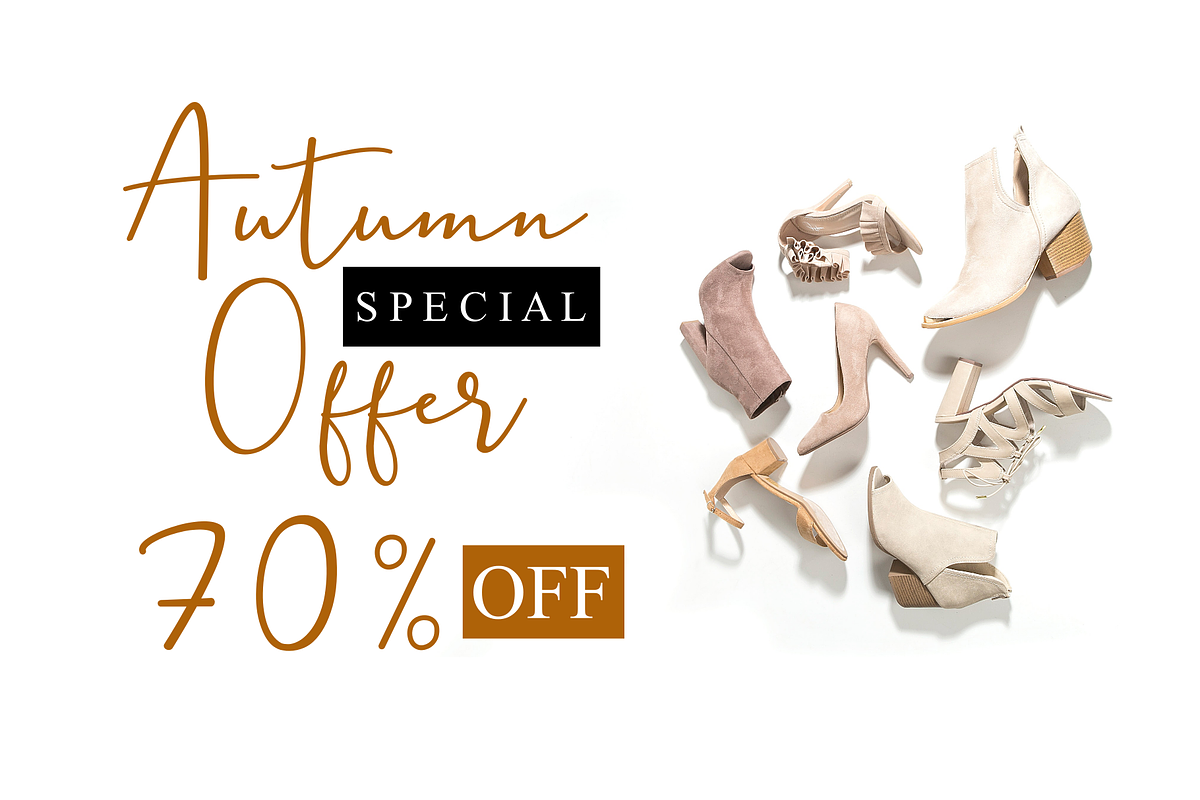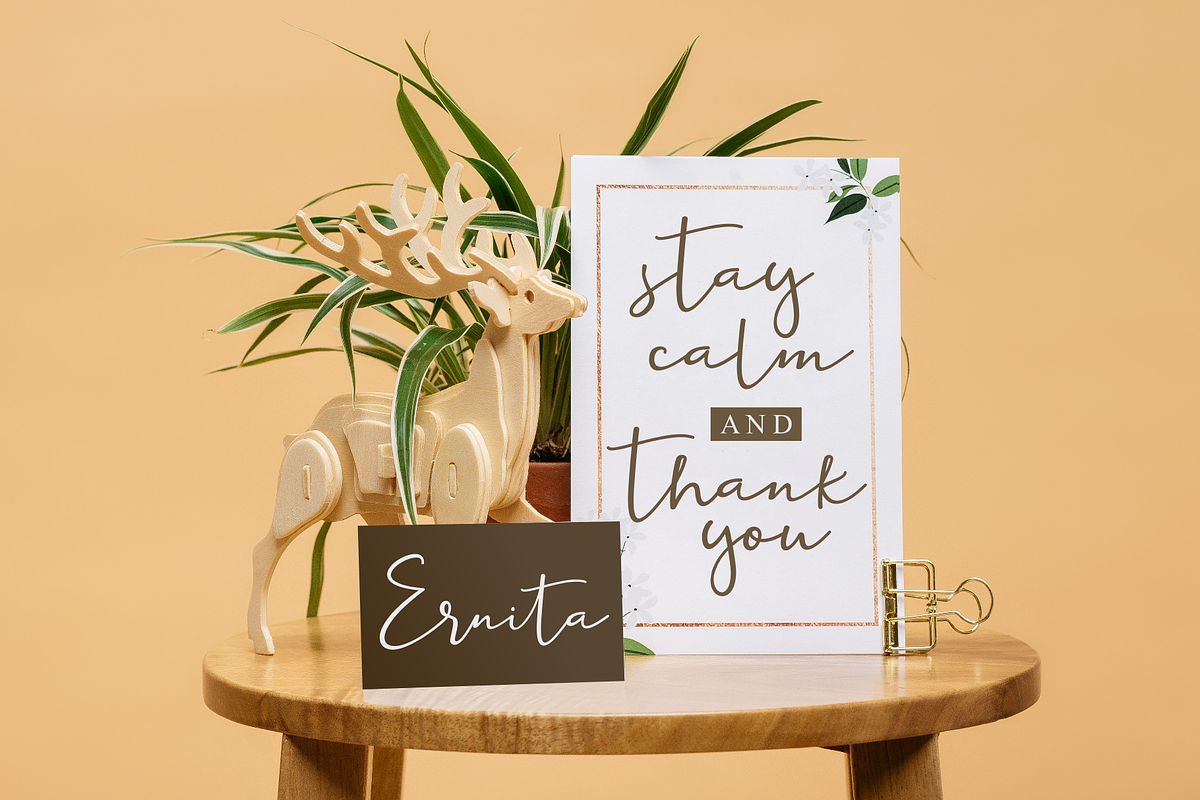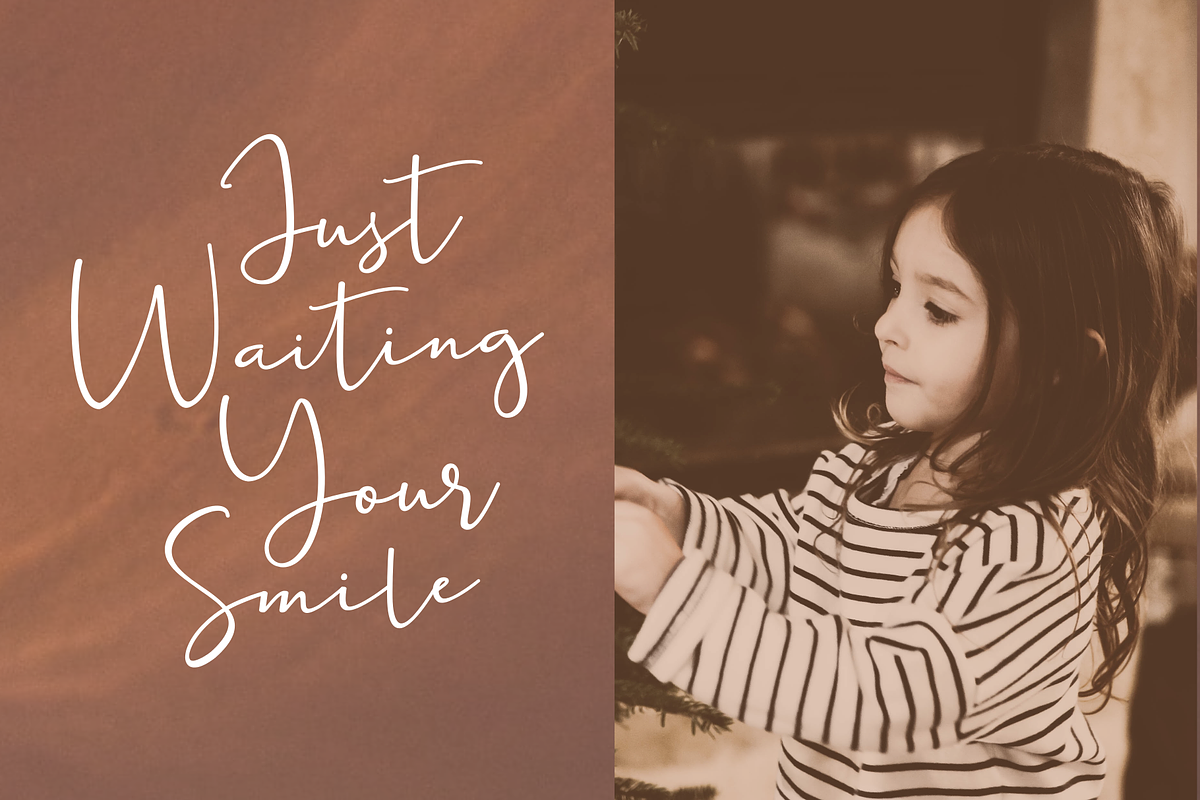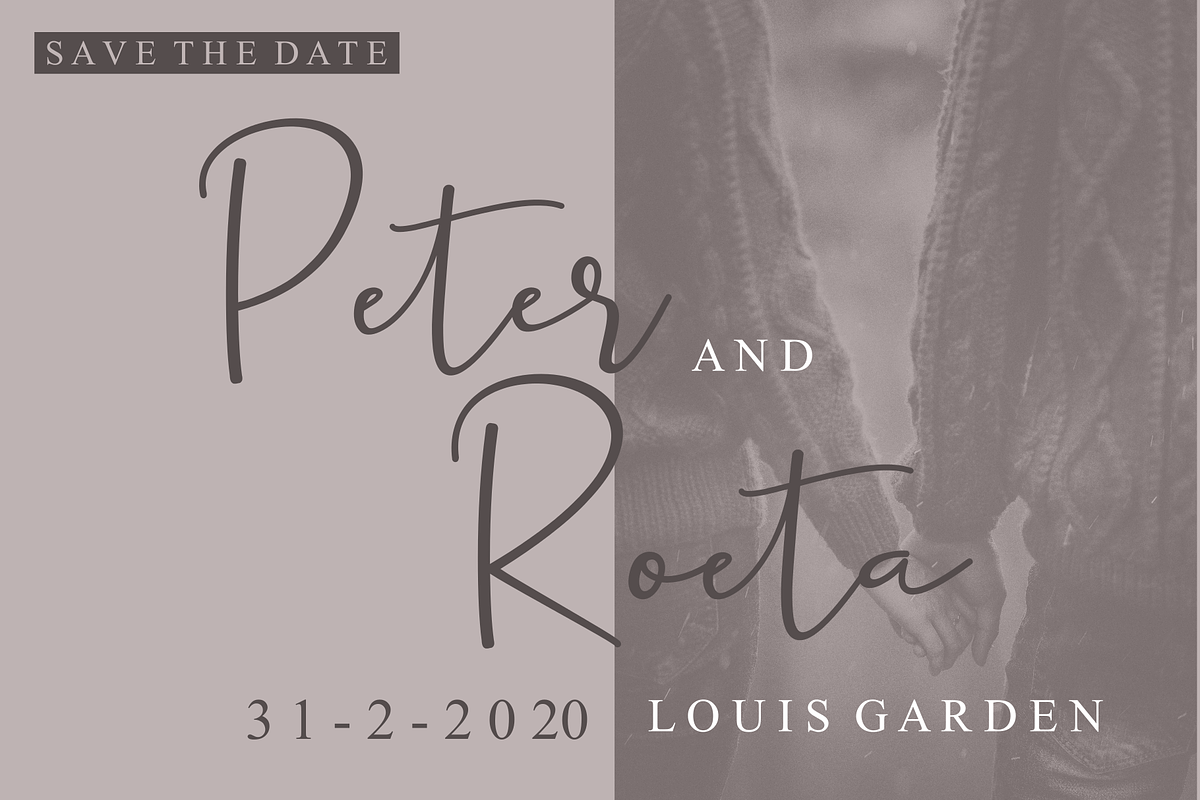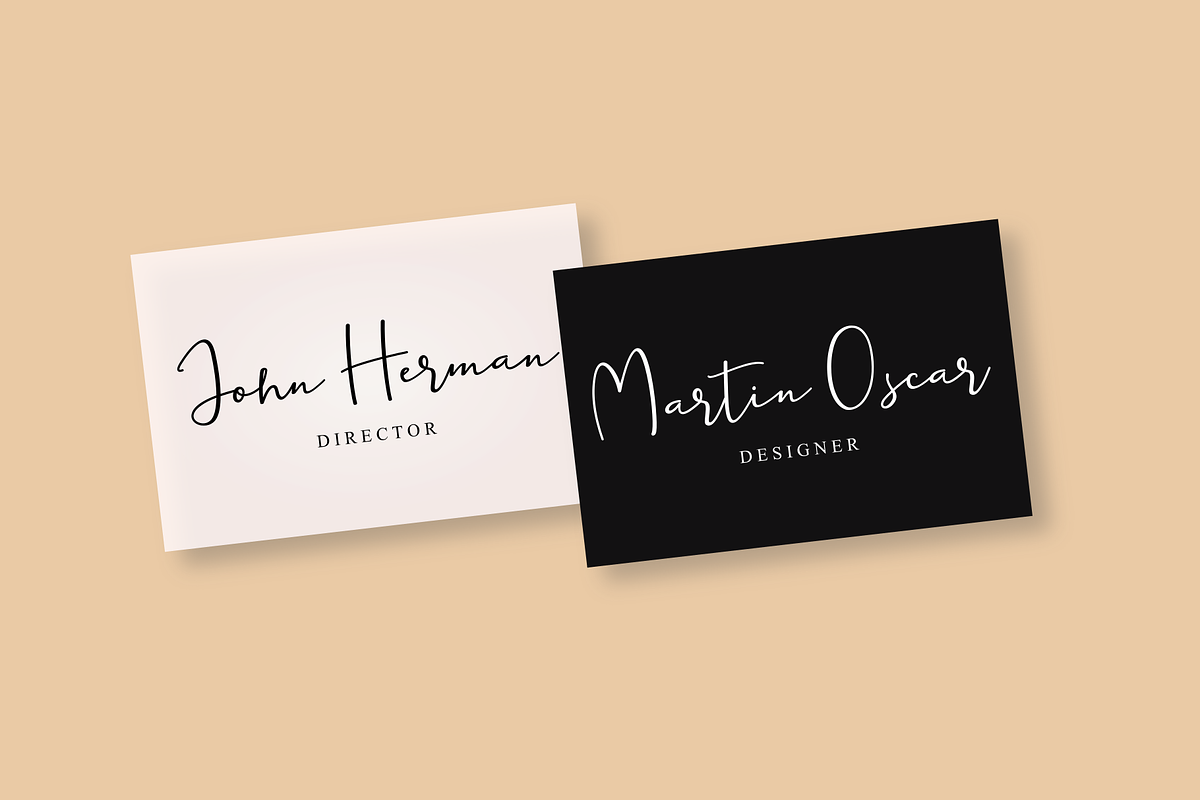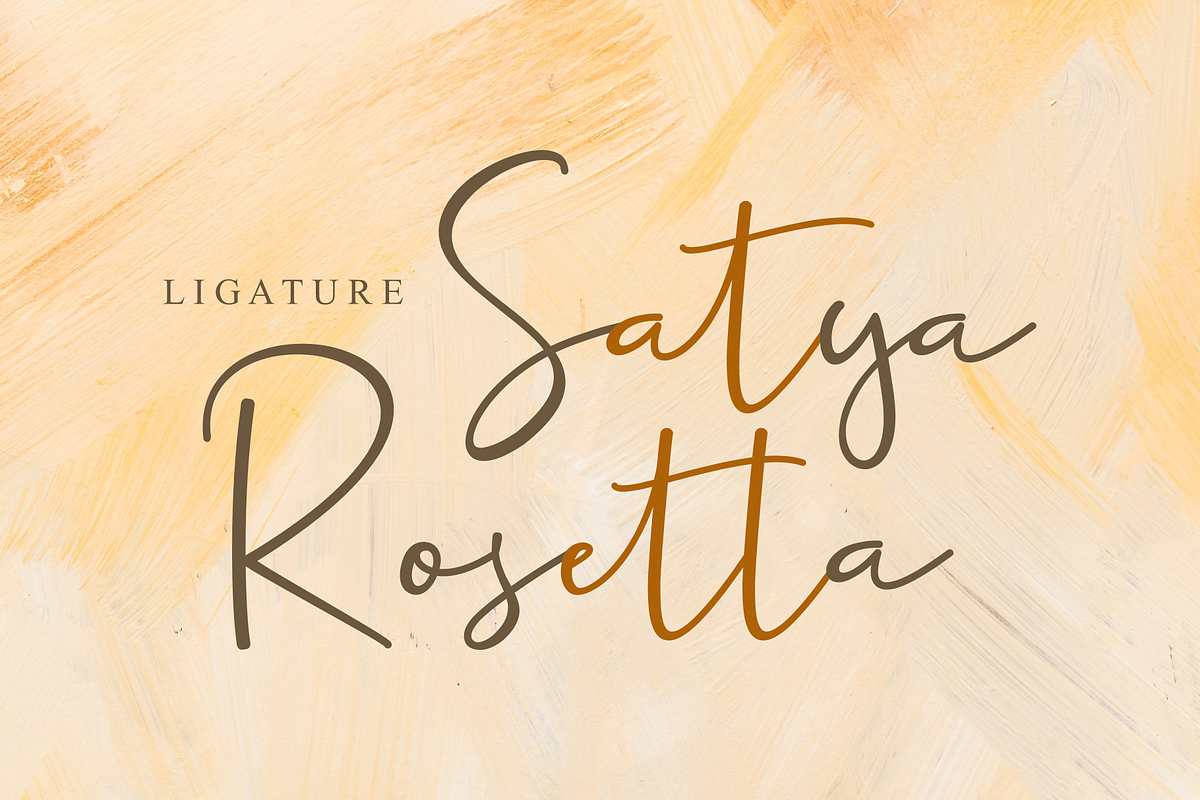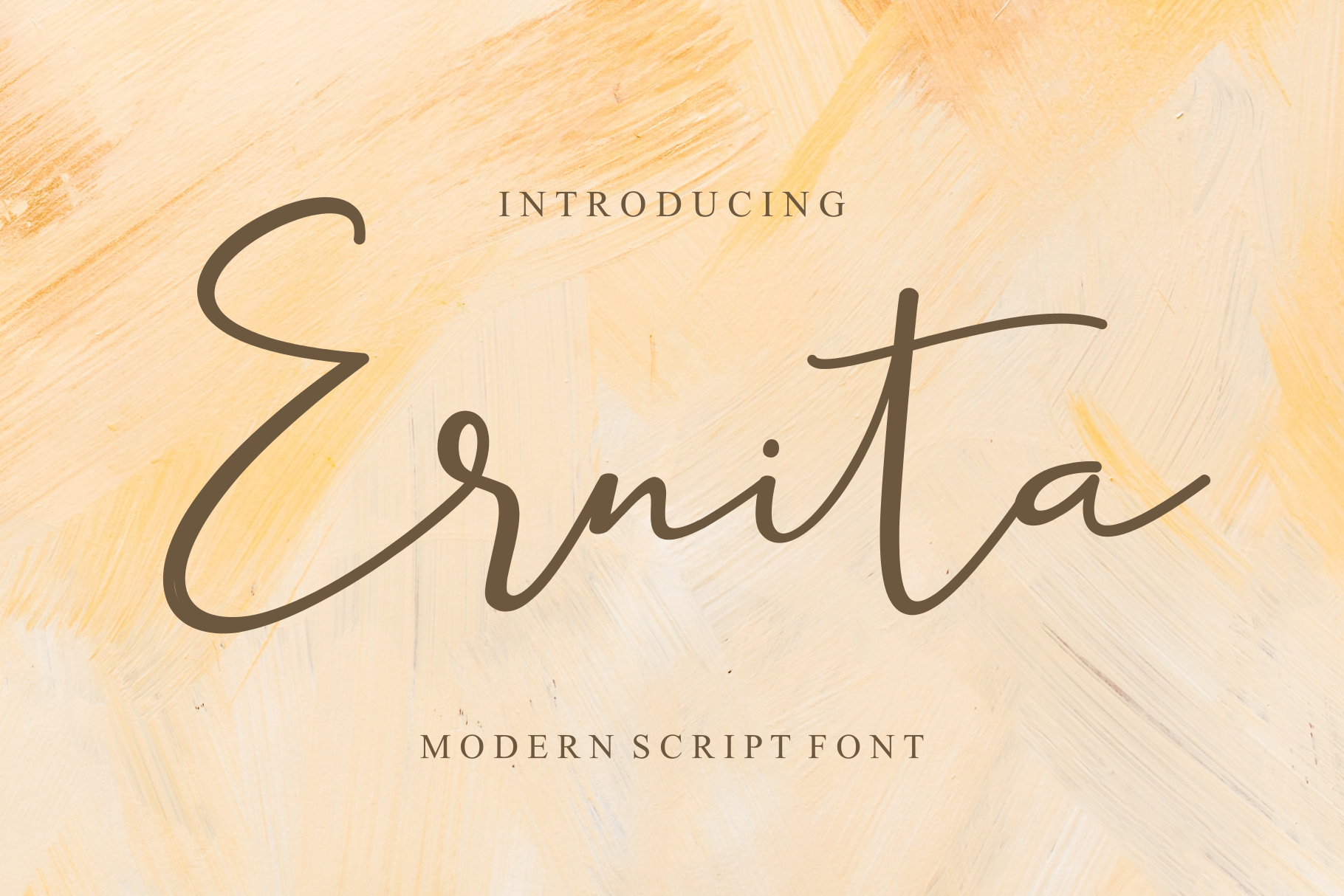
Ernita | Script Font
Ernita is a clean, bouncy, beautiful font, simple and funny. it can be incorporated into many designs including quotes text, wedding invitations, posters and you can create custom cards to give to your friends and family.